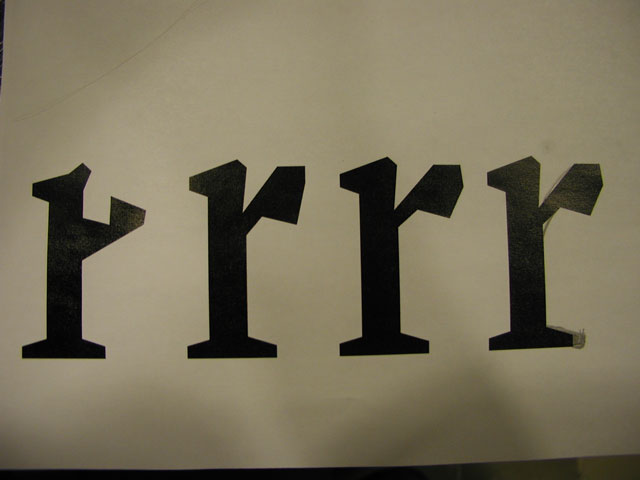
![]() ![]() ![]() bible type basic info : presentation half way : Latest news: nothing's gonna stop them now - click here to see more ![]() Started with a research on existing typefaces, meant for small sizes, long running text, highly economical, which are well readable but still save lots of space. Then started to create an own typeface, but not starting from scratch. The starting point was a Bodoni, and then to see which aspects had to be changed to make it more appropiating for our goal. Ascenders and descenders could be shorter, less contrast was made, forms of the serifs were adapted, and most of the characters were made more narrow to make the font more economical. Tension in the curve of the b was researched then the next day, together with the tension in the shoulder of the n. Also the form of the serifs and the overall feeling of the type were considered. Meanwhile a new type started to be created, with almost no relation at all with the original Bodoni. After deciding the most basic features of the typeface, some other characters were created with the same appearance as the original n and b. This makes testing in small sizes possible, with some words, and makes it possible to compare it with the original starting point. Is our version so far better or not? Did we take the right decisions, or do we have to reconsider our decisions again? Right or wrong, hard decicions were taken, but let's go to develop the whole hamburerfontstiv to see how it works, and after we will work with g, and capitals, and numbers... in Lahti!. ![]()
![]() 3 comments so far: read comments ![]() ![]() Bas -- Wednesday, October 23 2002, 07:21 pm Guys guys guys, it looks like I cannot stop you anymore... Hrant H Papazian -- Thursday, October 24 2002, 01:08 am I'm keeping my eye on this one - I love this style of type (which I think is becoming a new trend) almost as much as I love chocolate. Those "Latin slab" serifs are so honest, and the unexpected angles are wonderful. Please, don't end up "homogenizing" it too much, divergence is such a valuable scarcity. hhp